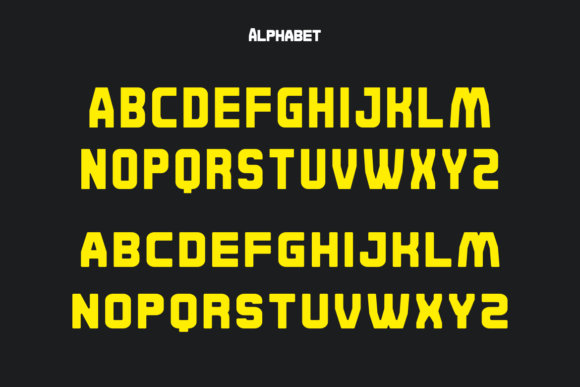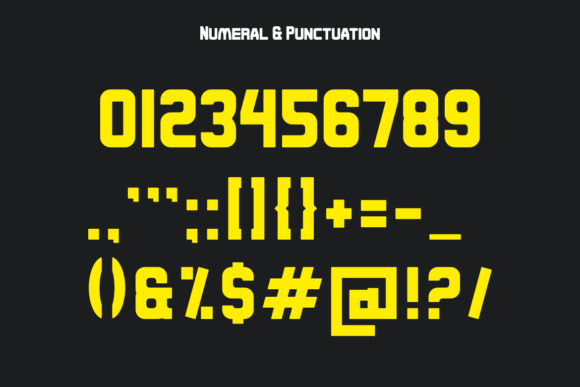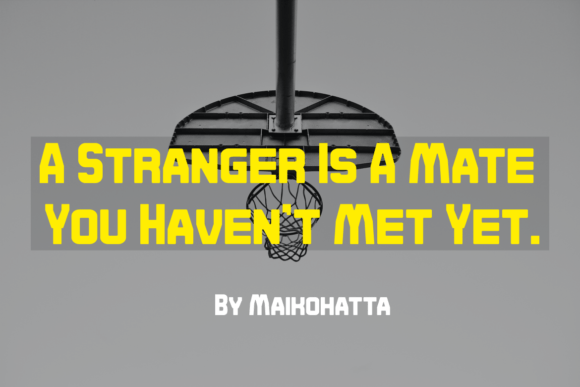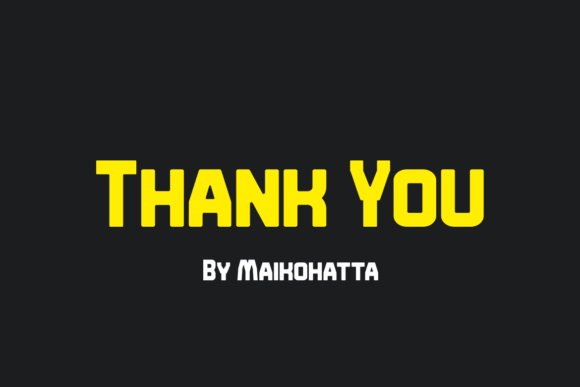
Introduction to Lebrone Font
Introducing our new product **LEBRONE Font** – Modern Font is a bold and authentic display font.
The font is suitable for any branding project like logo, template design, esport, and many more outstanding in a wide range of contexts.